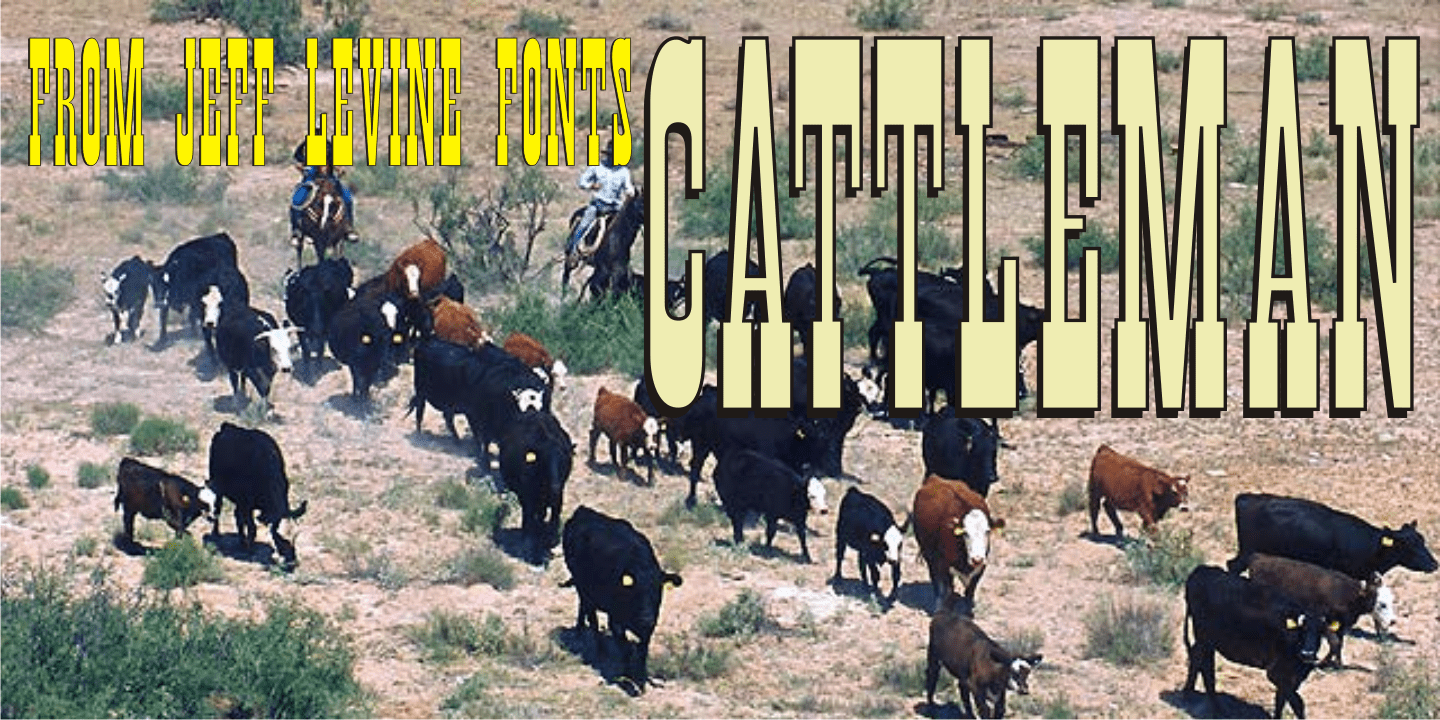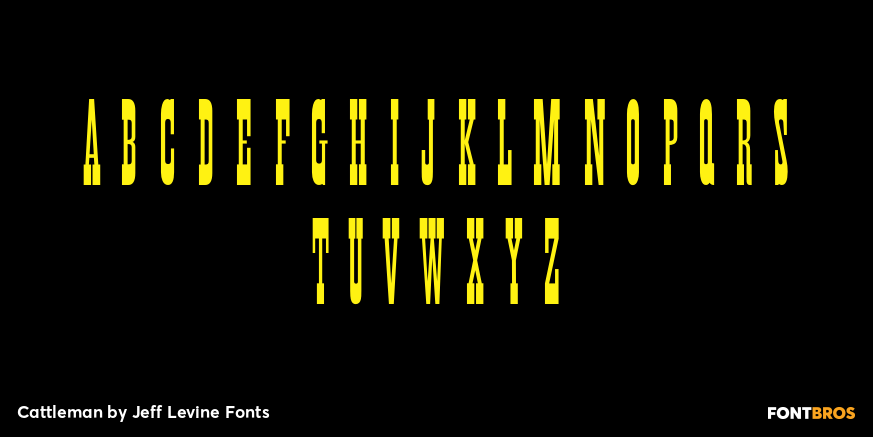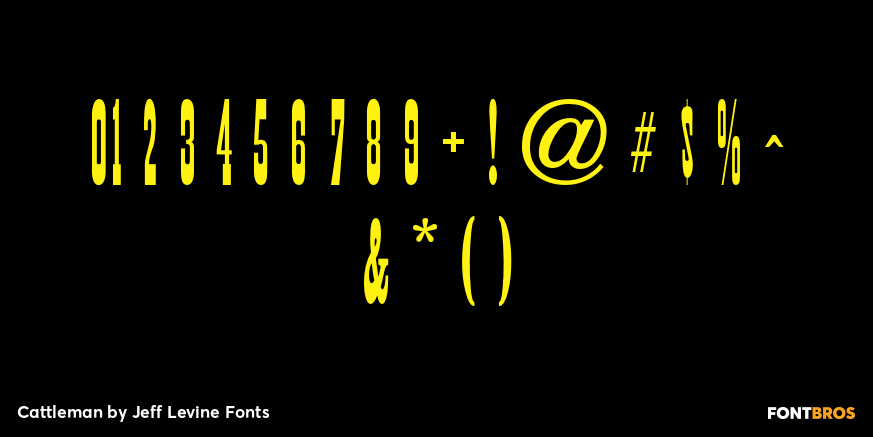
Cattleman
Cattleman JNL is a reinterpretation of a classic ultra-condensed wood type in the French Clarendon style often associated with Western-themed fliers and posters.